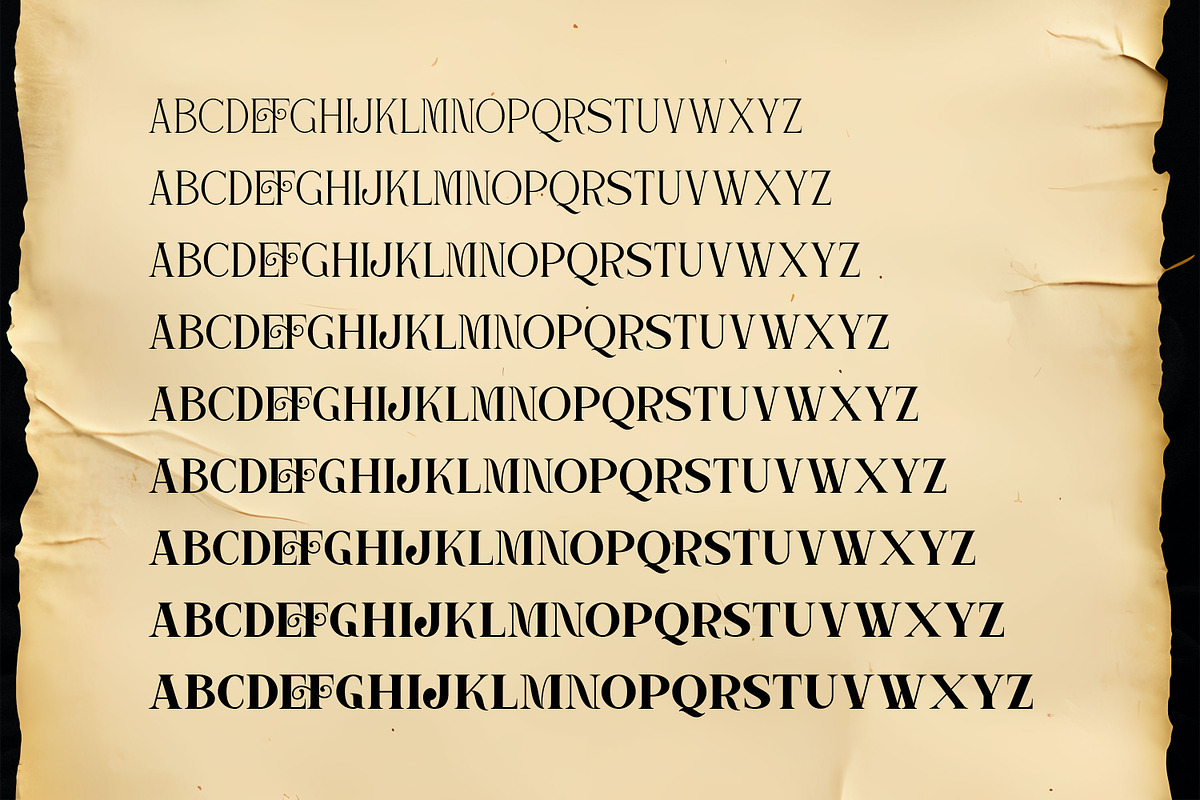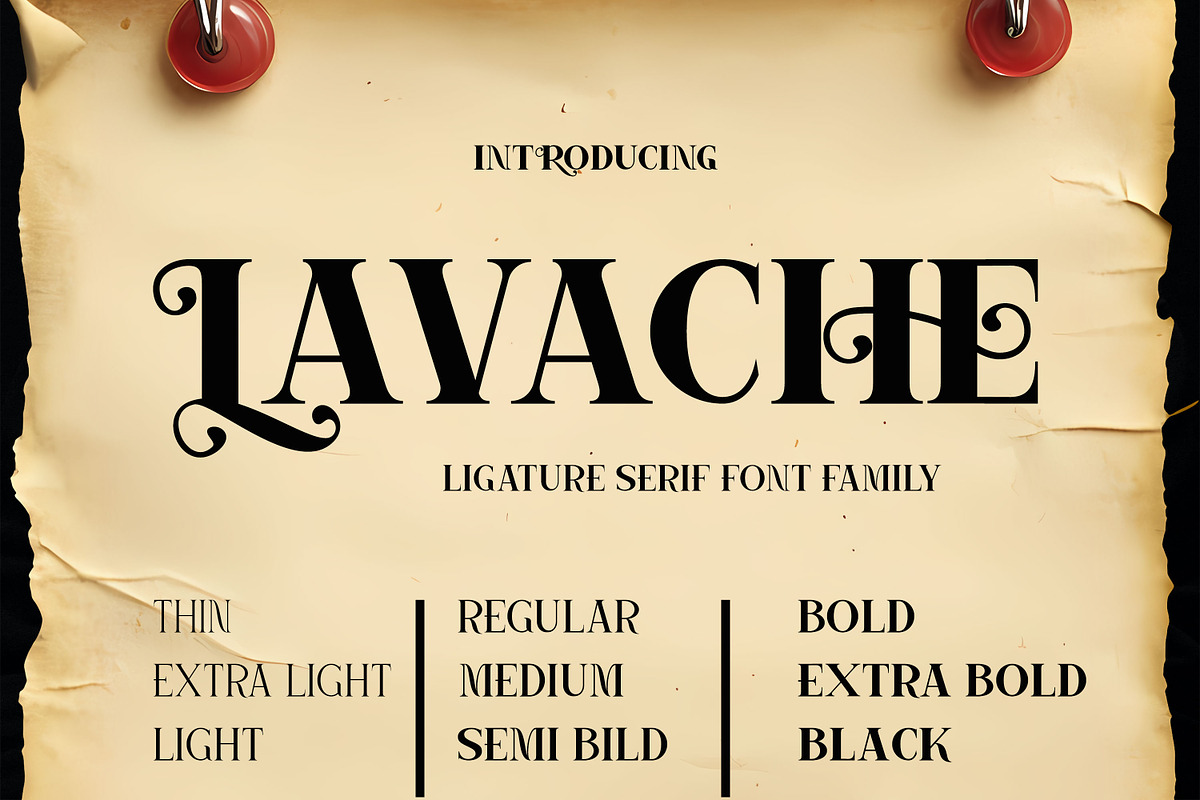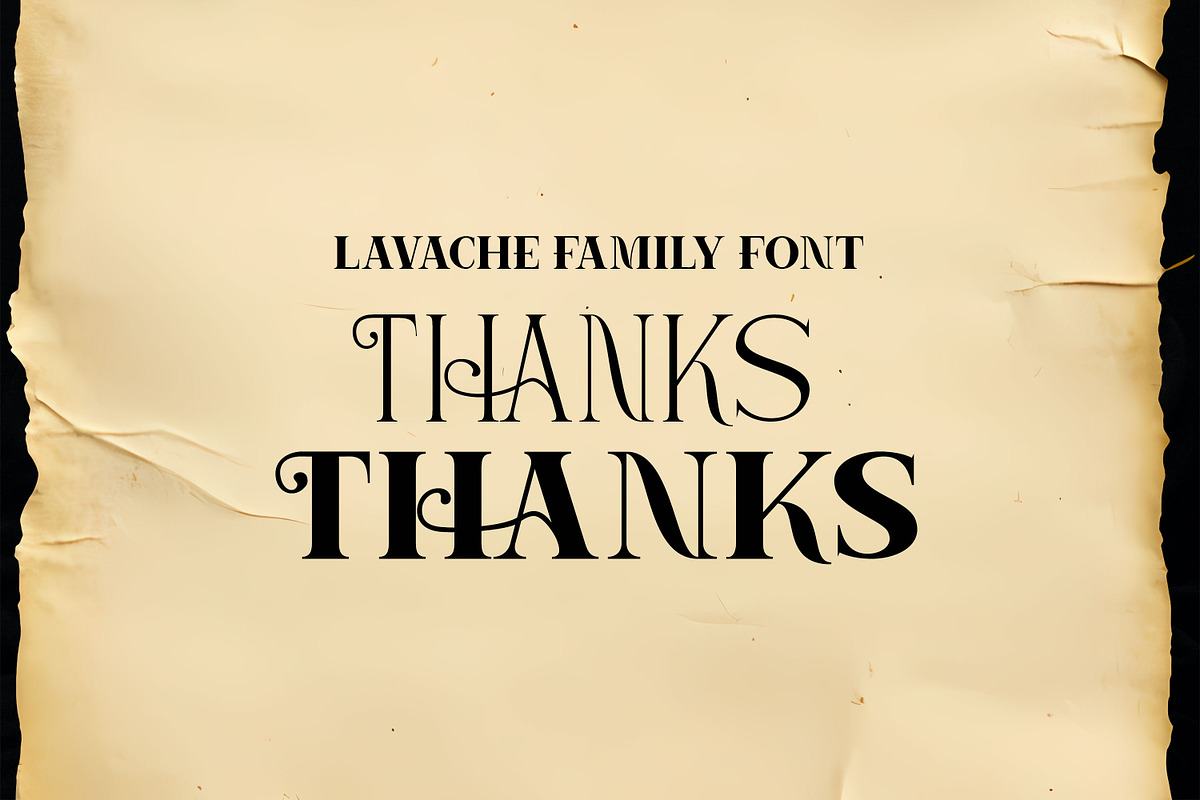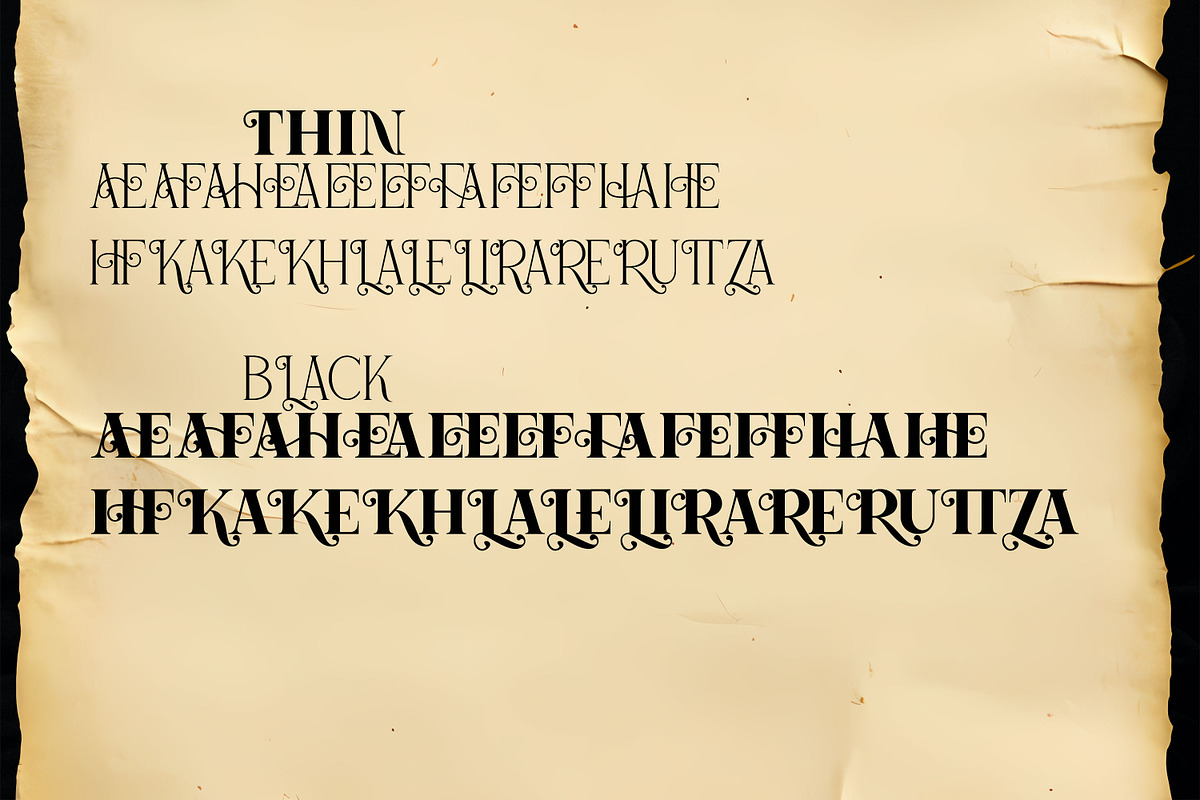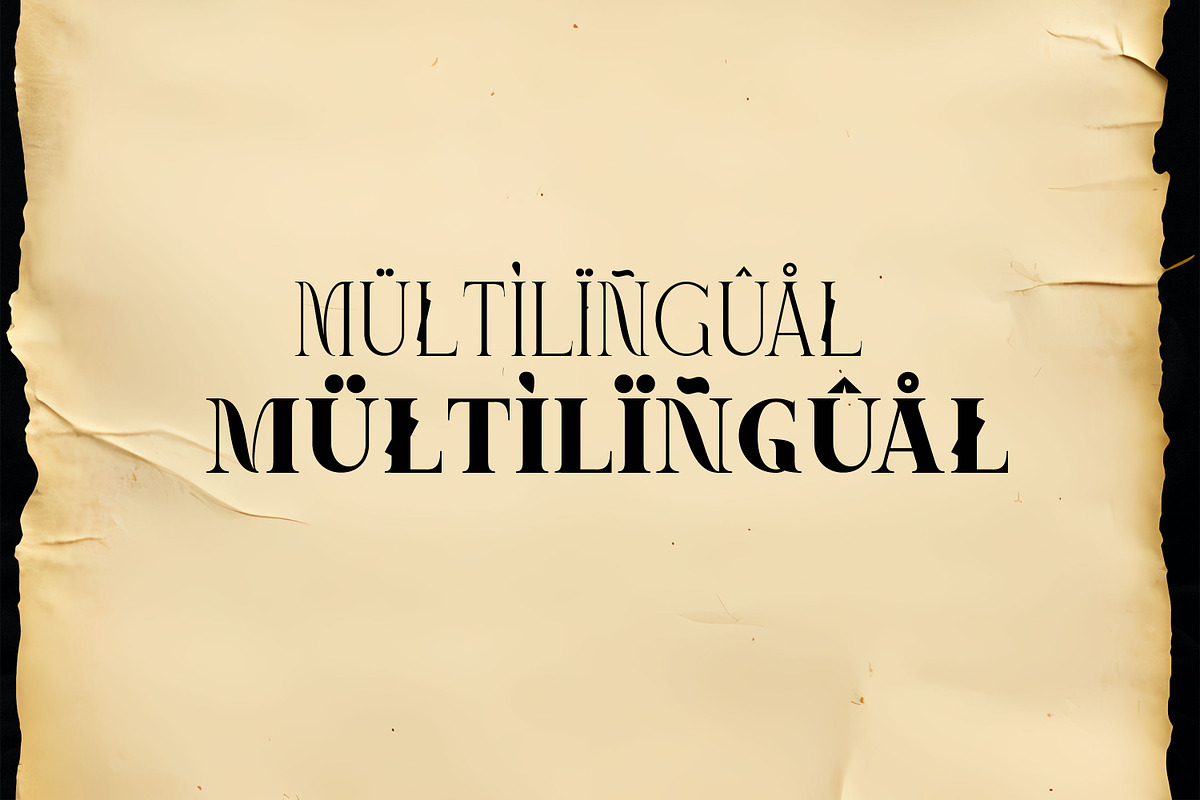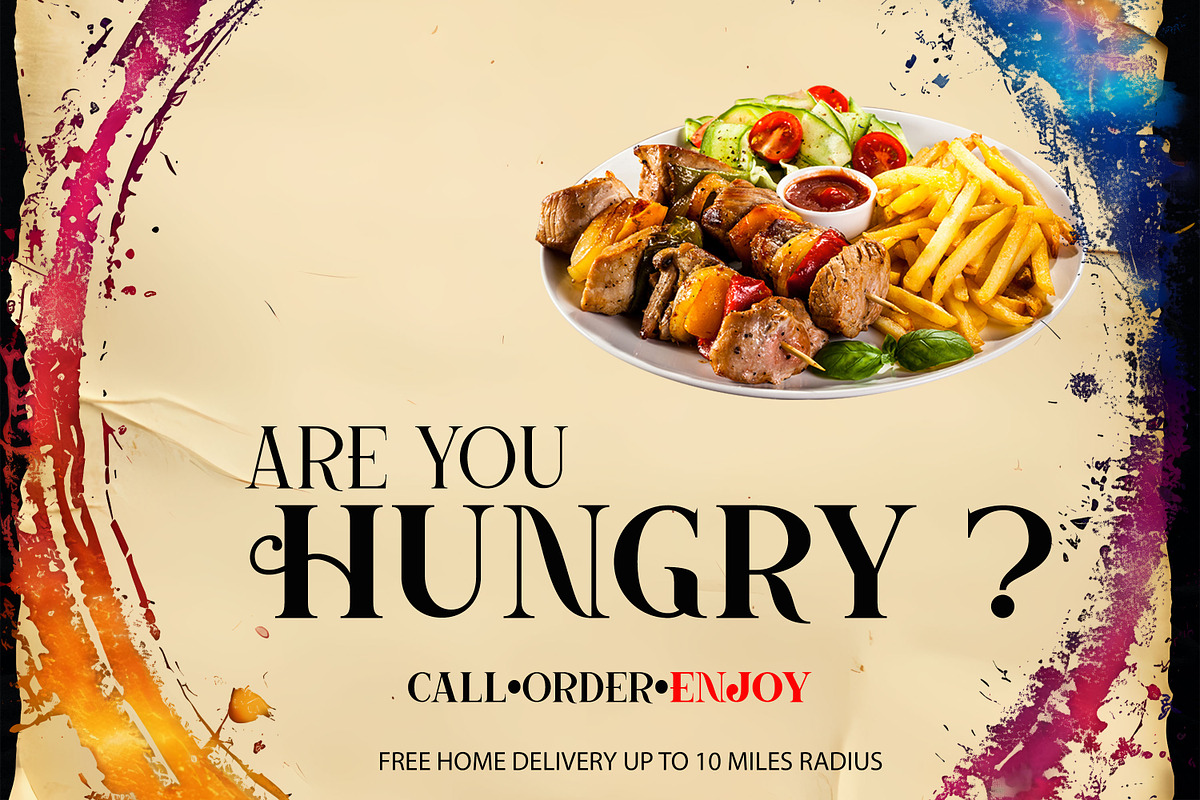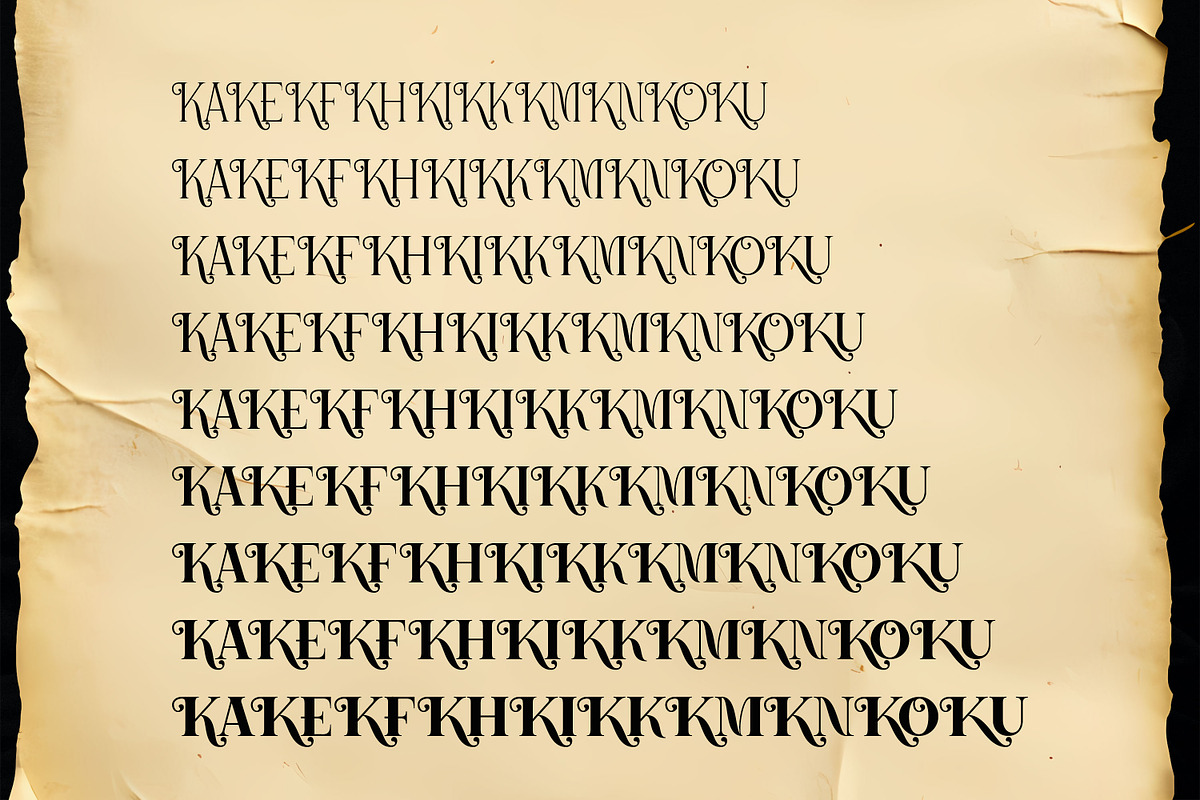
Lavache
Lavache is a bold and stylish condensed serif family font, blending retro aesthetics with modern minimalism. Designed with uppercase and lowercase characters, Lavache features strict proportions, clean lines, and striking curves, giving your designs a bold personality.
This font is perfect for posters, logo designs, editorial titles, album covers, fashion branding, and display titles, attracting attention with a distinctive touch.